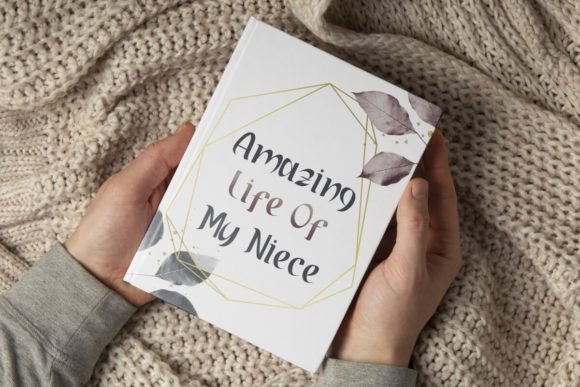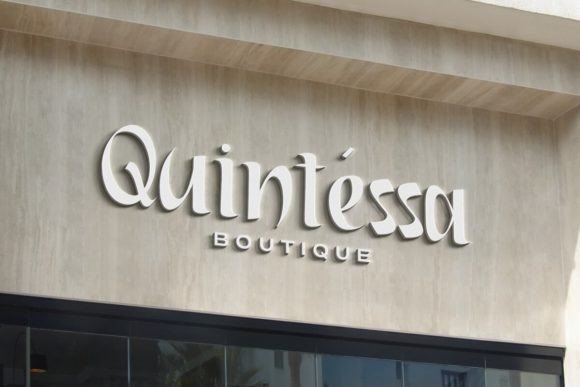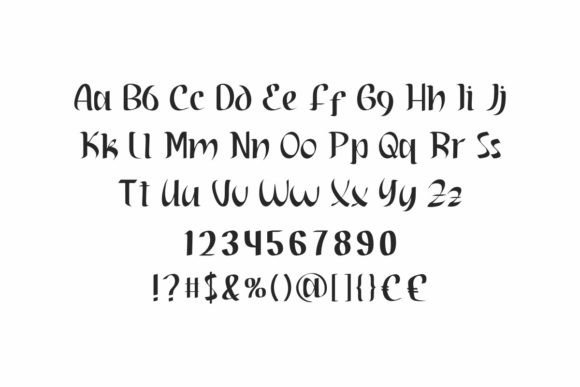
Introduction to Inner Child Font
Inner Child Font is a stylish display font.
This font has bold lines that will make your writing easy to read and sharpen your perfect design It will be suitable for industries such as authors, boutiques, cosmetics, fashion, jewelry, publishing, and more.